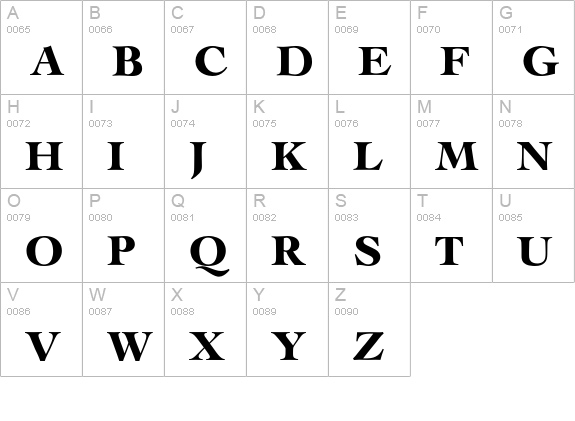
Le Cochin Bold Font Details
Le Cochin Bold is a strong, high-contrast variant in the Le typeface family \xE2\x80\x94 well suited to headlines, attention-grabbing titles, and strong calls-to-action.
Introducing Le Cochin Bold, a stunning font that effortlessly combines elegance and boldness. This versatile typeface is perfect for capturing attention and making a powerful statement in any design project. Le Cochin Bold boasts a timeless yet contemporary appeal, with its bold and confident letterforms. The sturdy strokes and well-defined curves create a sense of strength and authority, making it ideal for headlines, logos, packaging, and more. What sets Le Cochin Bold apart is not just its visually striking appearance, but also its accessibility. This font is freely available to download at FontsMarket.com, allowing designers, artists, and creatives of all kinds to easily incorporate it into their projects. Whether you're looking to make a lasting impression with your branding or add a touch of sophistication to your editorial designs, Le Cochin Bold has got you covered. Its wide range of characters and symbols make it suitable for a variety of languages and typographic needs. With Le Cochin Bold, you can confidently make a bold statement while maintaining a sense of refined elegance. So why wait? Download this exceptional font for free at FontsMarket.com and elevate your designs to new heights.